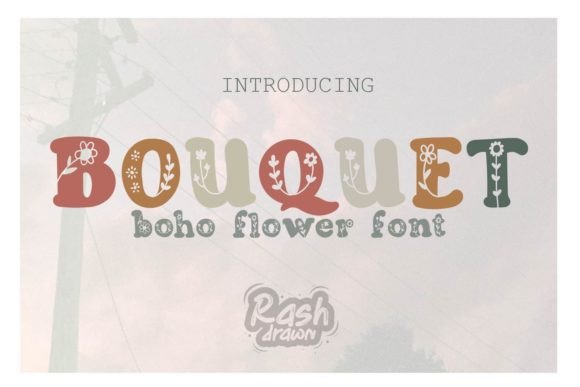
The Bouquet Font: A Stunning Display Font to Elevate Your Designs
I’ll never forget the time I was working on a project for a client who wanted a logo that exuded elegance and sophistication. I had spent hours browsing through font libraries, but nothing seemed quite right. That was until I stumbled upon the Bouquet font. Its intricate details and bold, attention-grabbing shapes immediately caught my eye, and I knew I had found the perfect fit. In this article, I’ll share my experience with the Bouquet font, its unique features, and how to make the most of it in your designs.
A Personal Review of Bouquet Font
What I Love About Bouquet Font ✨
• 💃 Intricate details: The Bouquet font is a true work of art, with delicate flourishes and ornate features that add a touch of luxury to any design.
• ✅ Unique design: The font’s bold, attention-grabbing shapes set it apart from other fonts, making it perfect for logos, headlines, and other display purposes.
• 🎨 Versatility: Despite its ornate nature, the Bouquet font can be used in a variety of design contexts, from elegant wedding invitations to bold advertising campaigns.
• ⚠️ Limited use in body text: Due to its ornate nature, the Bouquet font may not be the best choice for body text, as it can be difficult to read in large blocks.
• 🤔 Limited language support: The Bouquet font may not support all languages, so be sure to check the font’s specifications before using it in a multilingual design.
The Story Behind Bouquet Font
The Bouquet font was designed by a team of typographers who wanted to create a font that would evoke the elegance and sophistication of a beautiful bouquet of flowers. Inspired by traditional calligraphy and hand-lettering techniques, the Bouquet font features intricate details and bold, attention-grabbing shapes. The font’s designers aimed to create a font that would be perfect for logos, headlines, and other display purposes, and we’re excited to see how it can be used in a variety of design contexts.
What is the Bouquet font best used for? The Bouquet font is best used for logos, headlines, and other display purposes, where its intricate details and bold shapes can be showcased.
Is the Bouquet font suitable for body text? No, the Bouquet font is not suitable for large blocks of body text, as its ornate nature can make it difficult to read.
Does the Bouquet font support multiple languages? The Bouquet font may not support all languages, so be sure to check the font’s specifications before using it in a multilingual design.